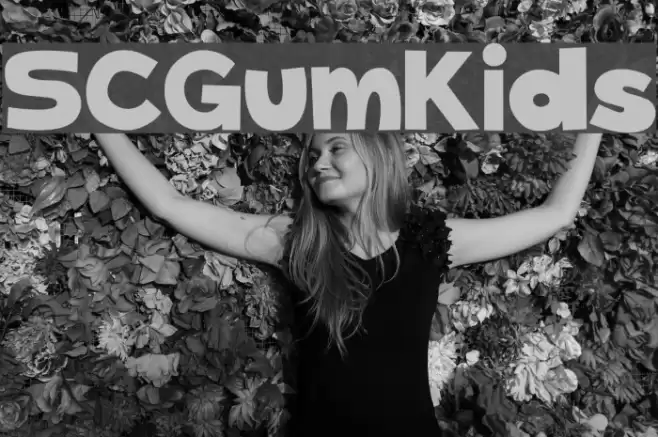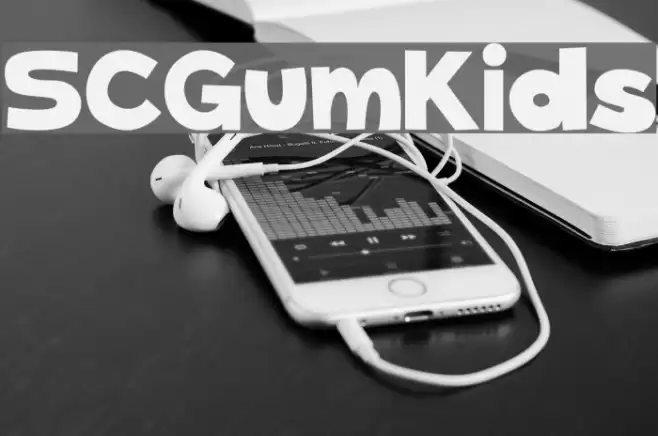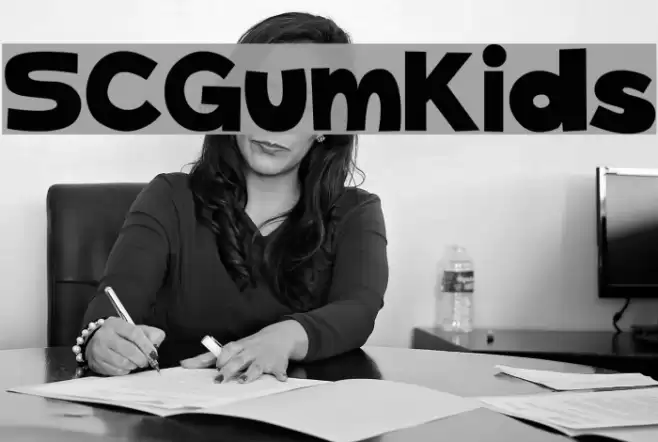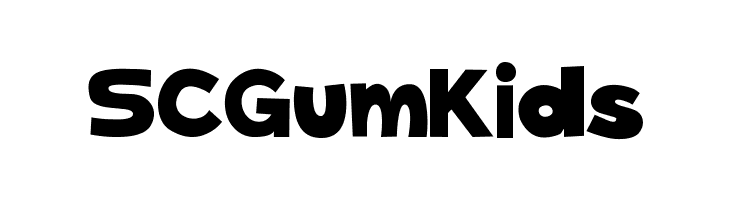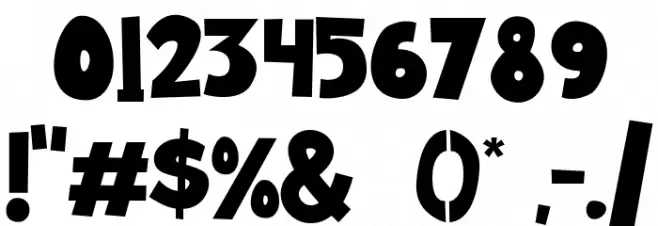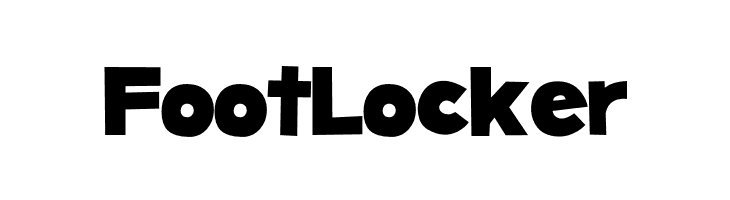
SCGumKids Font
SCGumKids Description
This playful and bold font features thick, rounded letters that convey a sense of fun and energy. The characters are uniformly bold, with a slightly irregular baseline that adds to its whimsical charm. The font's design is reminiscent of children's handwriting, making it ideal for projects that aim to capture a youthful or casual vibe. The numbers and special characters maintain the same playful style, ensuring consistency across all text elements. Its boldness ensures high readability, even at smaller sizes, while the rounded edges soften its overall appearance.
A playful, bold font with rounded letters and a whimsical, youthful style from Cartoon fonts.
- Proposed Projects: Ideal for children's books, playful branding, toy packaging, and educational materials.
- Overall Style: Playful, Youthful, Whimsical